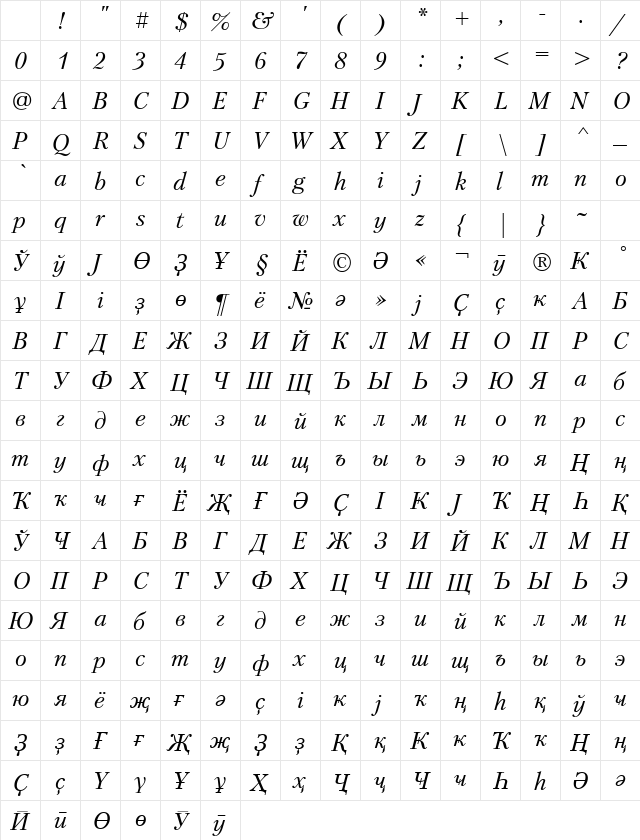
PetersburgITT is a composed and adaptable typeface that performs quietly and consistently across a wide range of design contexts. The slanted form adds forward momentum and visual energy.
Pro Tip: Use PetersburgITT for emphasis, pull quotes, and subheadings where its slanted energy can add rhythm to the layout.